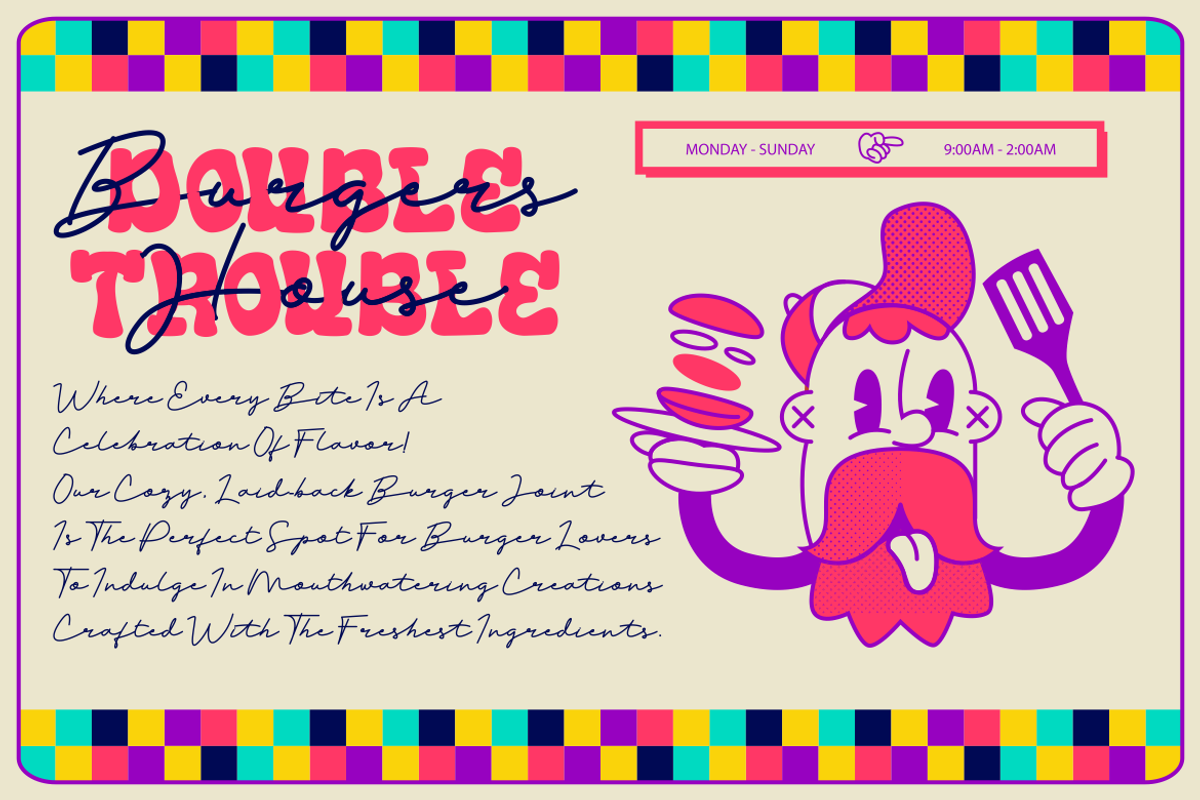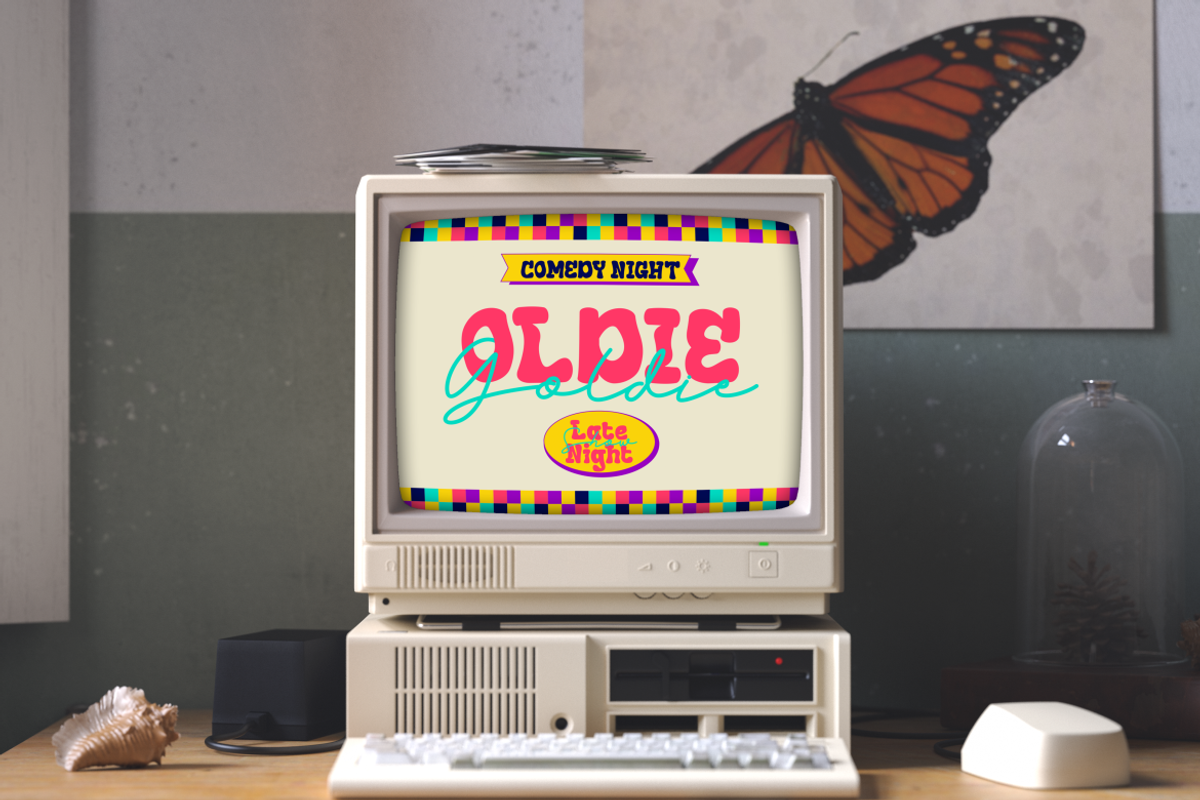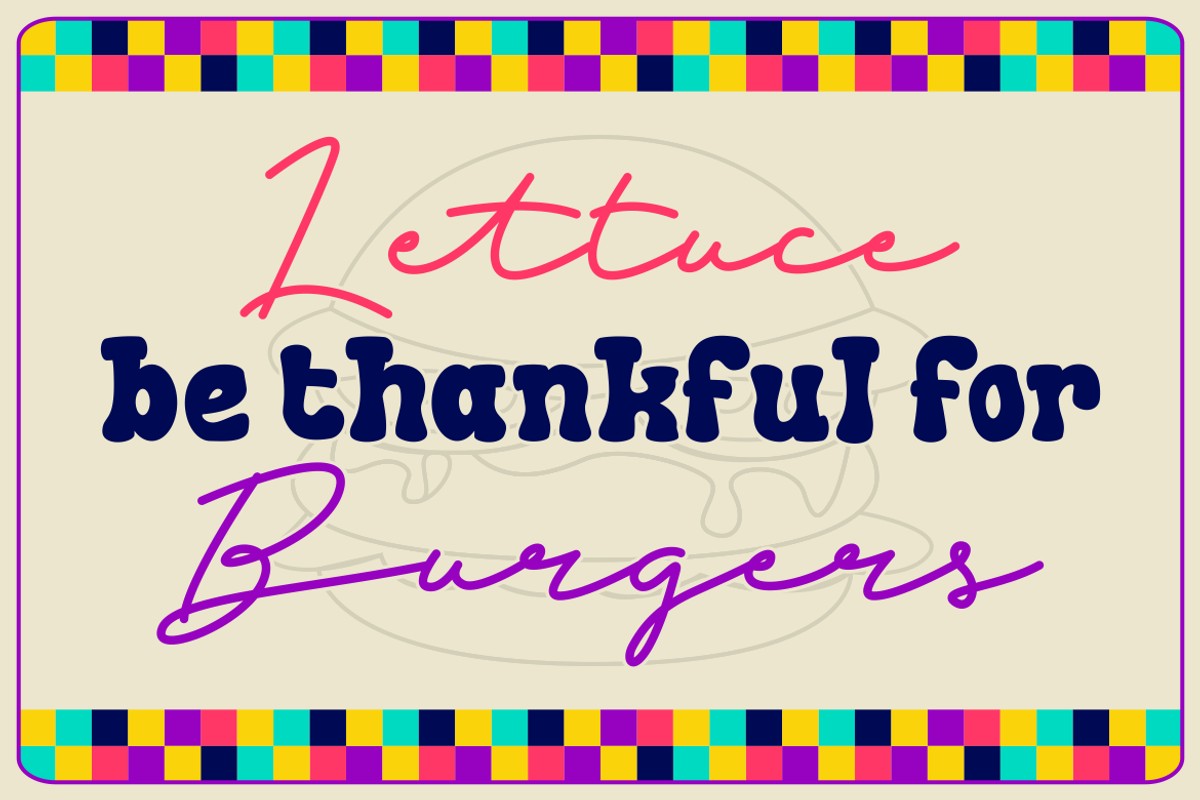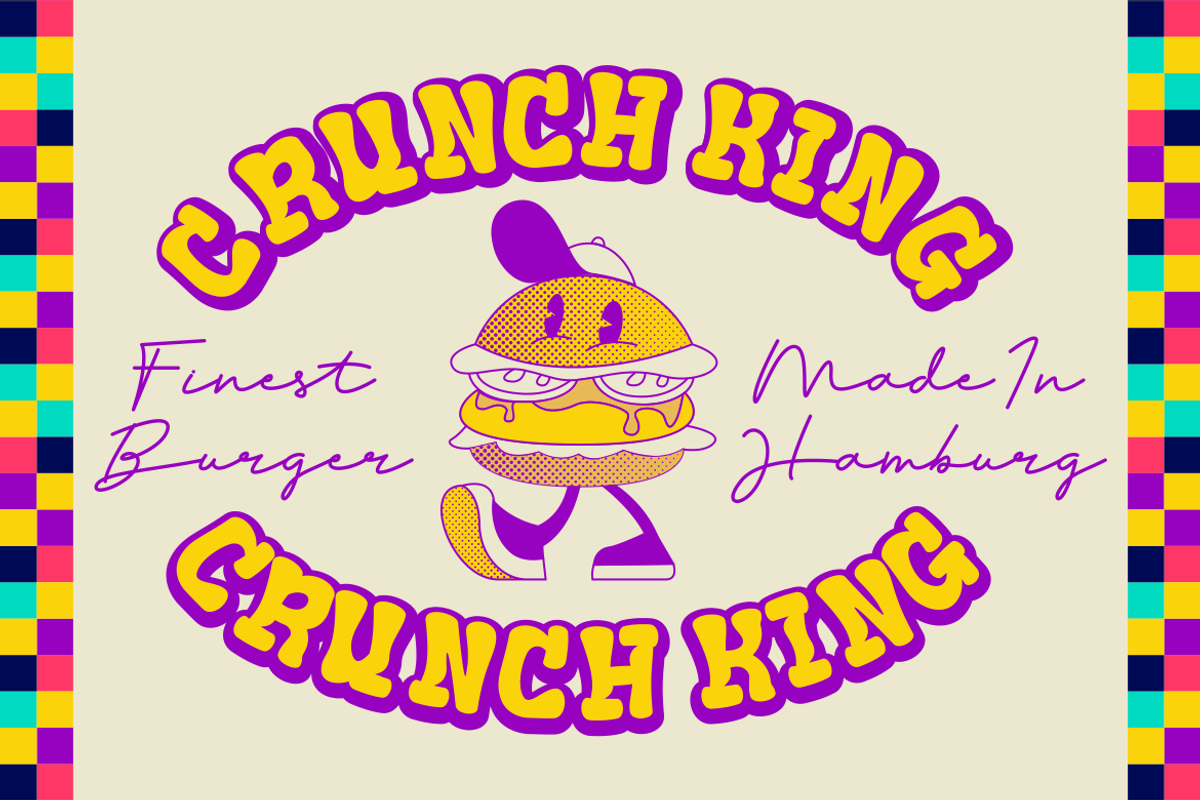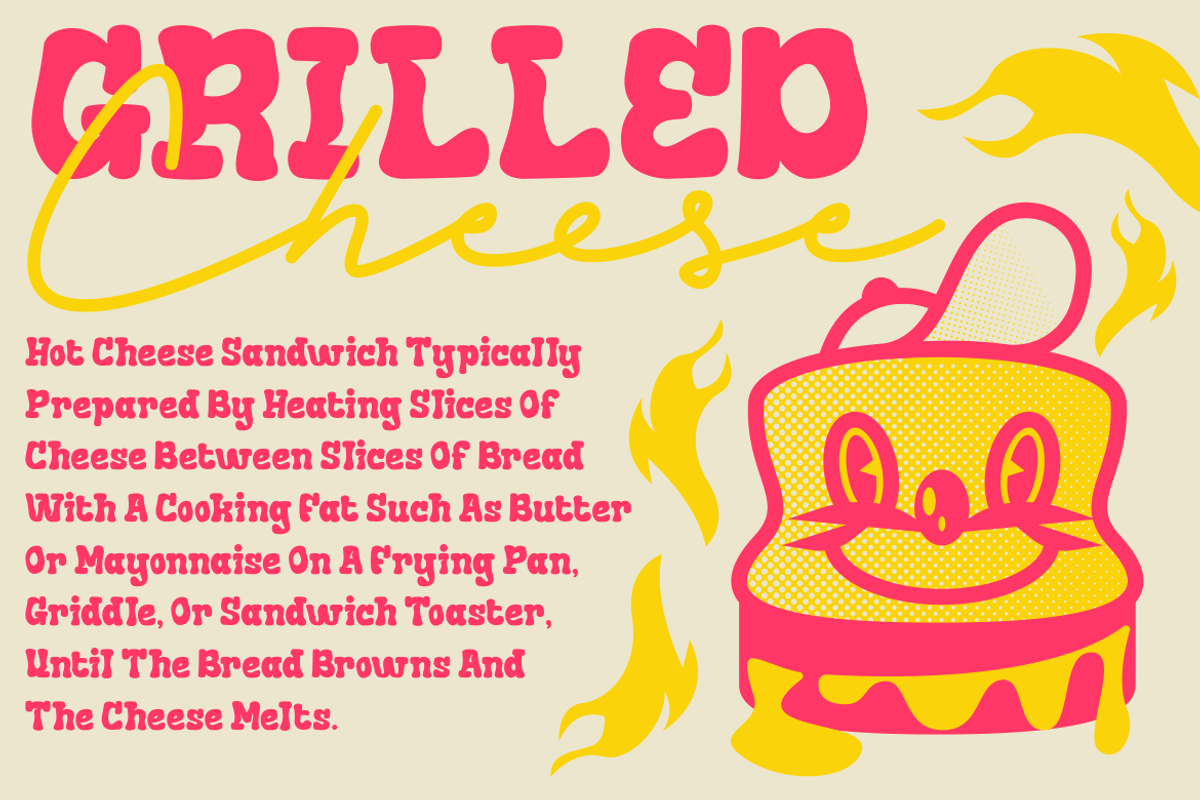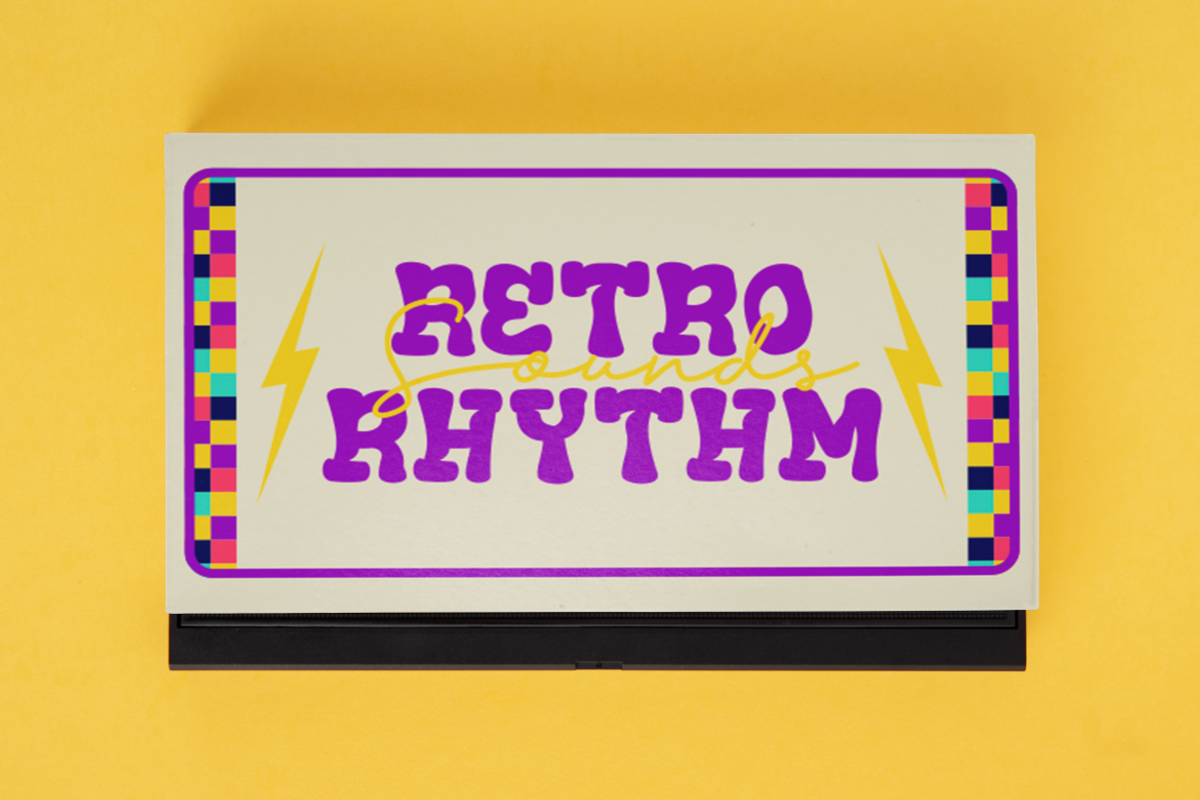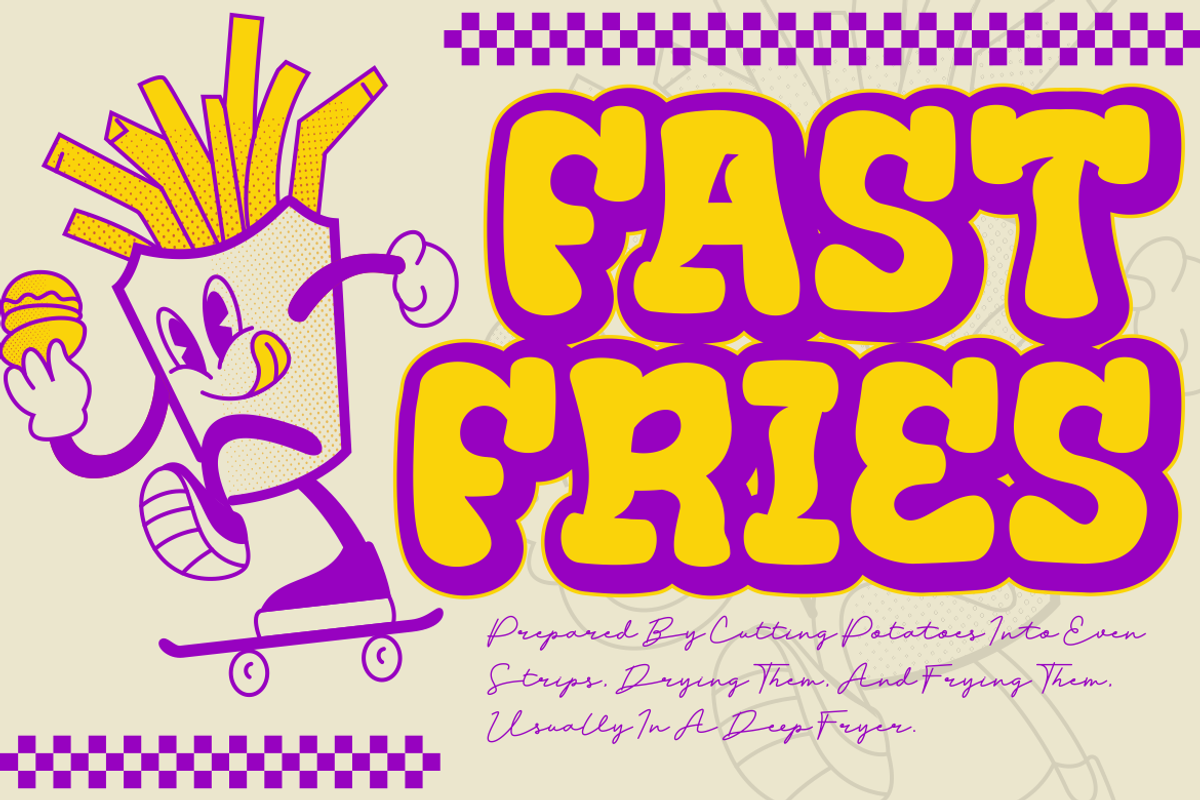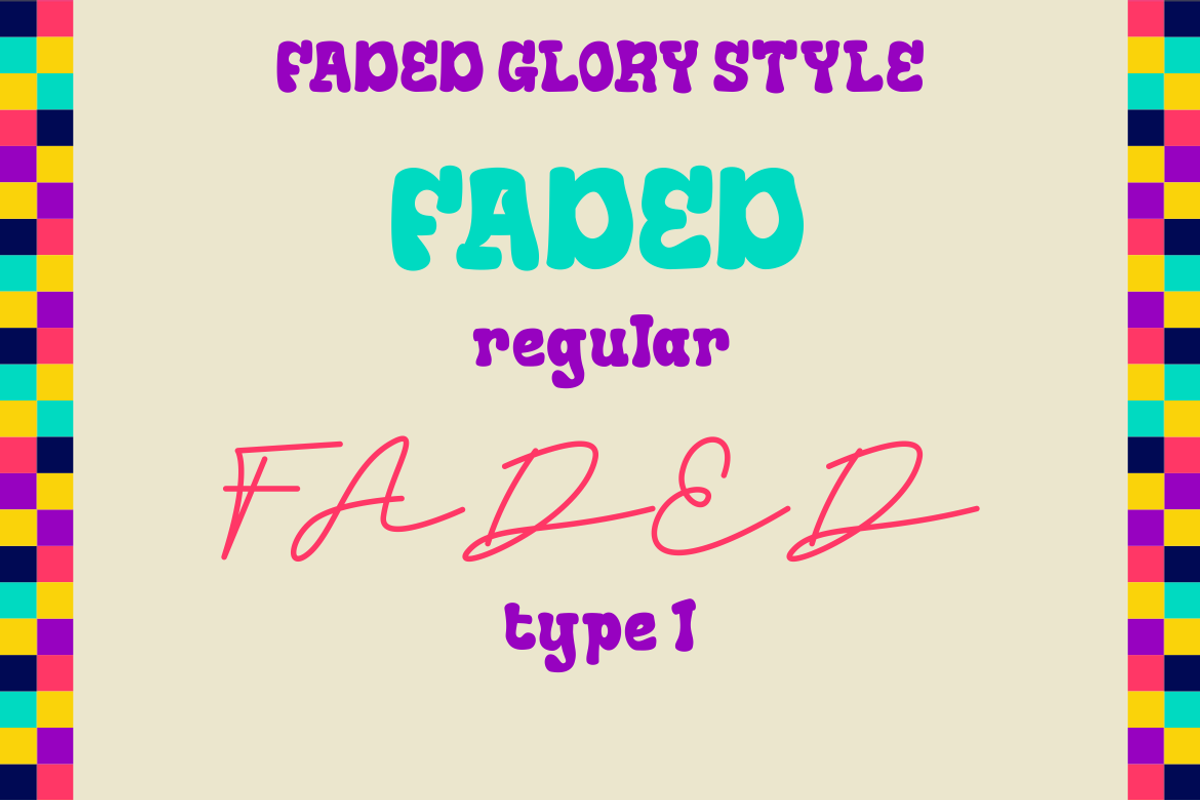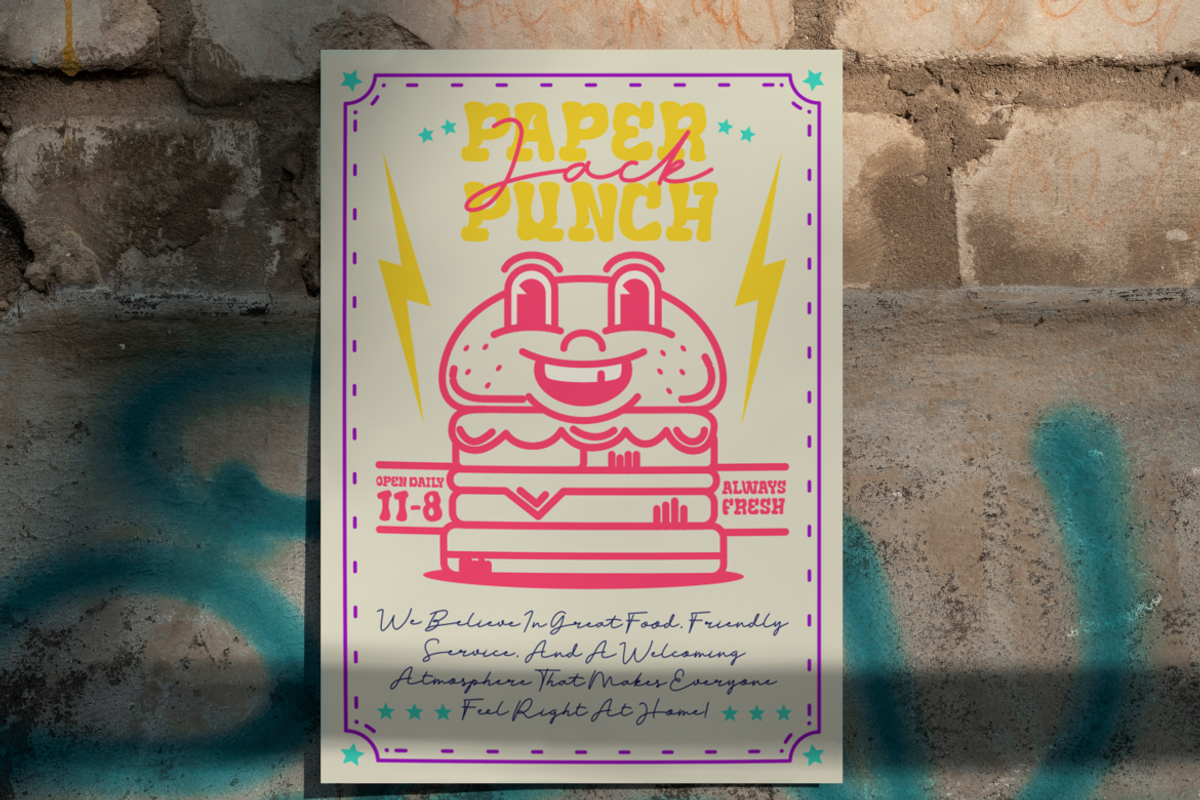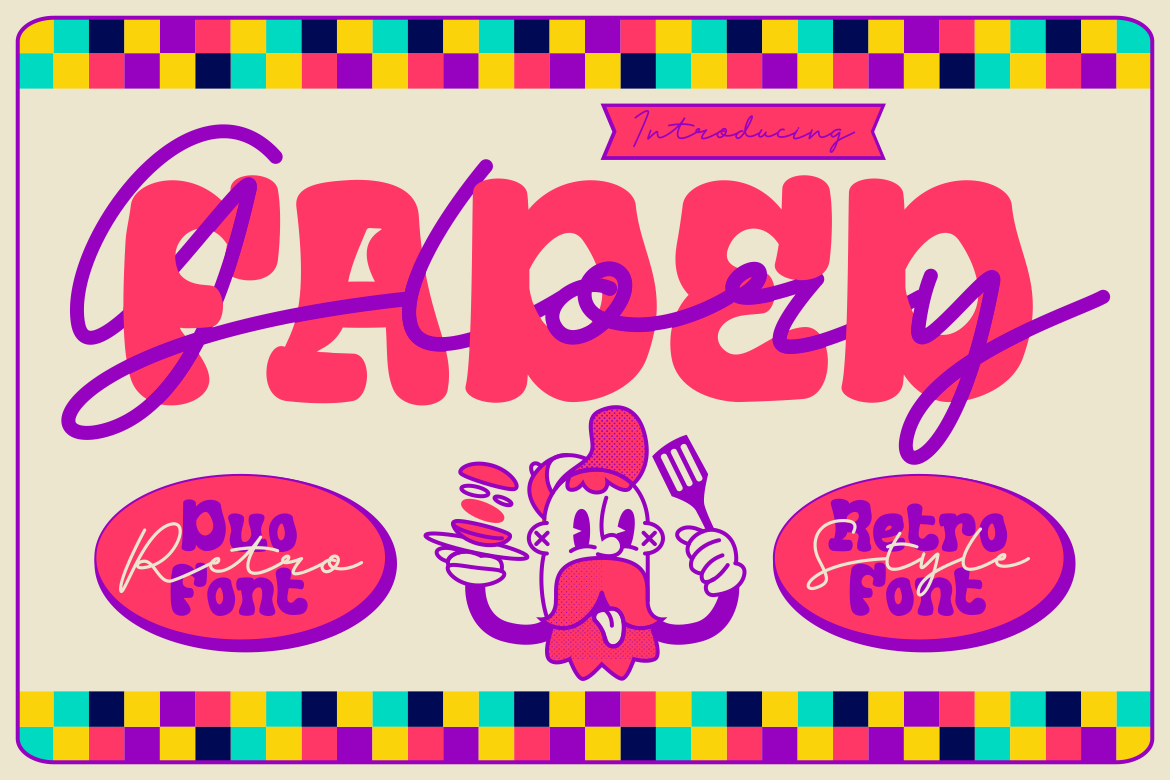
Faded Glory - Duo Retro Font
Introducing Faded Glory, a playful and nostalgic duo retro font that combines groovy, vintage vibes with a modern flair. This unique font duo includes both a bold, chunky display typeface and a smooth, flowing script, making it perfect for creating eye-catching designs. Its vibrant retro aesthetic is ideal for logos, posters, branding, and packaging that need to capture a fun and lively tone. Whether you're working on a funky branding project or crafting an inviting party invitation, Faded Glory adds a touch of personality that transports your audience back to the colorful, carefree days of the past.
The combination of both display and script styles provides a dynamic contrast, making Faded Glory versatile for a variety of design projects. Its groovy, vintage charm is ideal for use in book covers, greeting cards, film titles, and more. This font exudes a bold yet whimsical character that resonates with a wide audience, ensuring your project will stand out with a strong retro appeal. If you're looking for a font that encapsulates both nostalgia and modernity in one package, Faded Glory is the perfect choice.